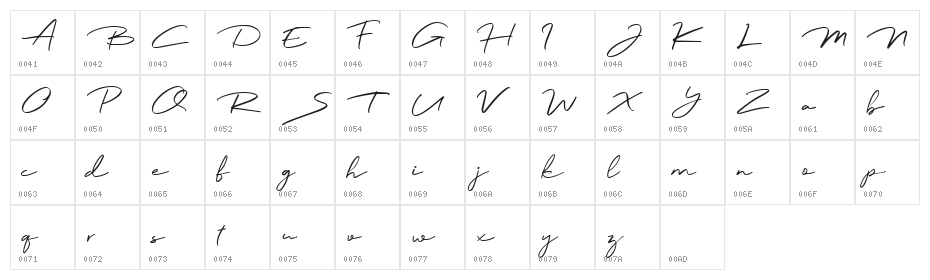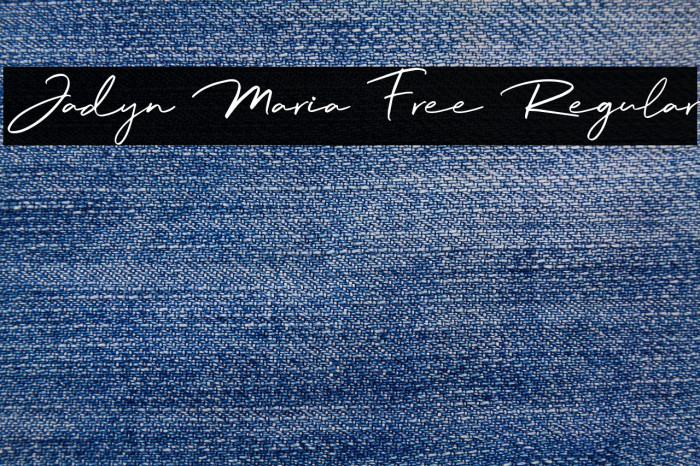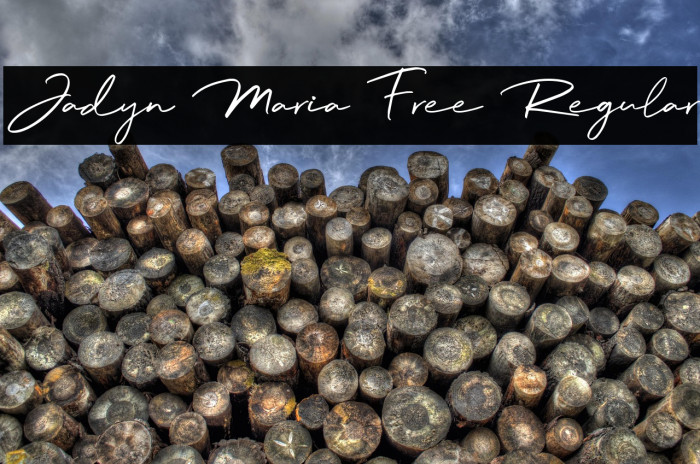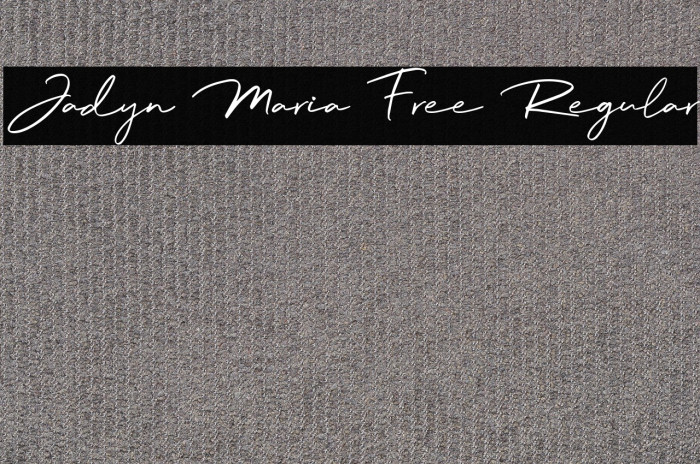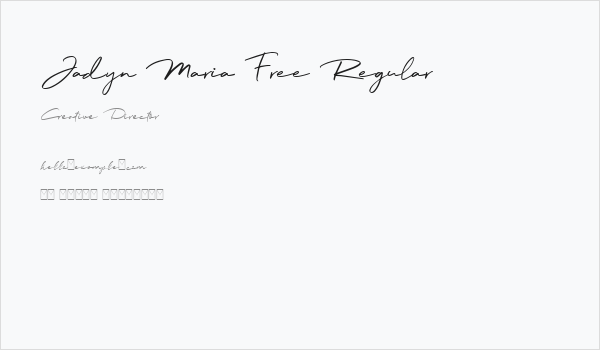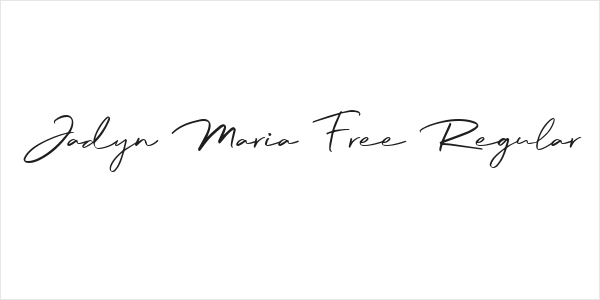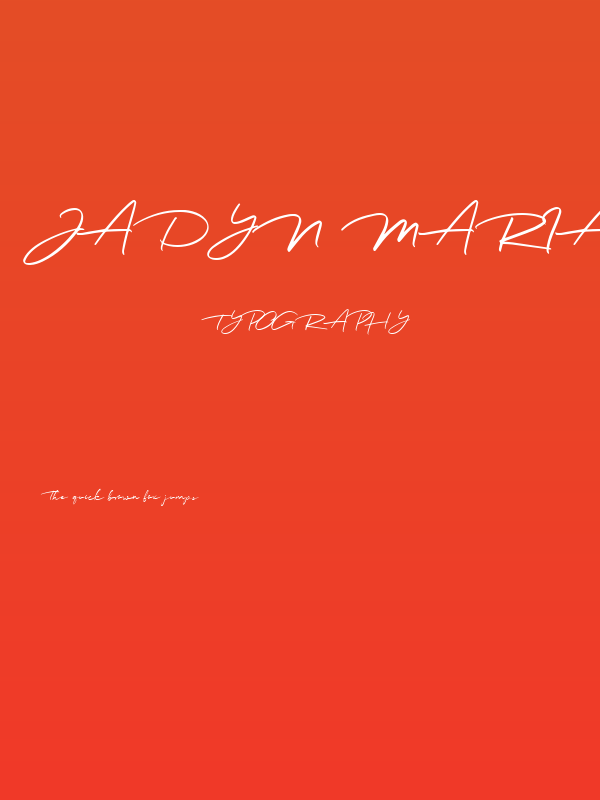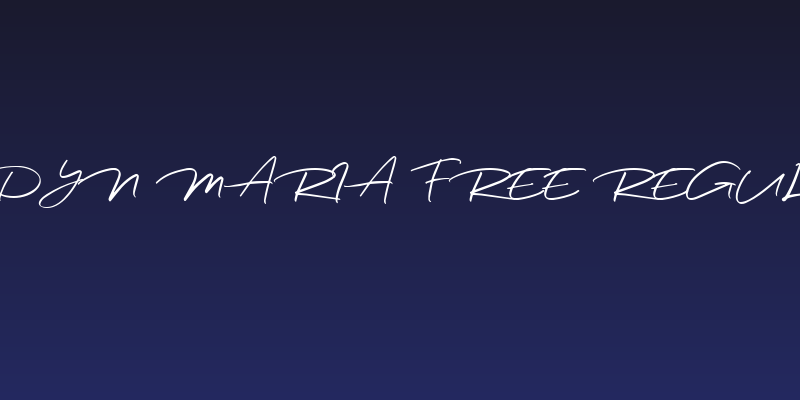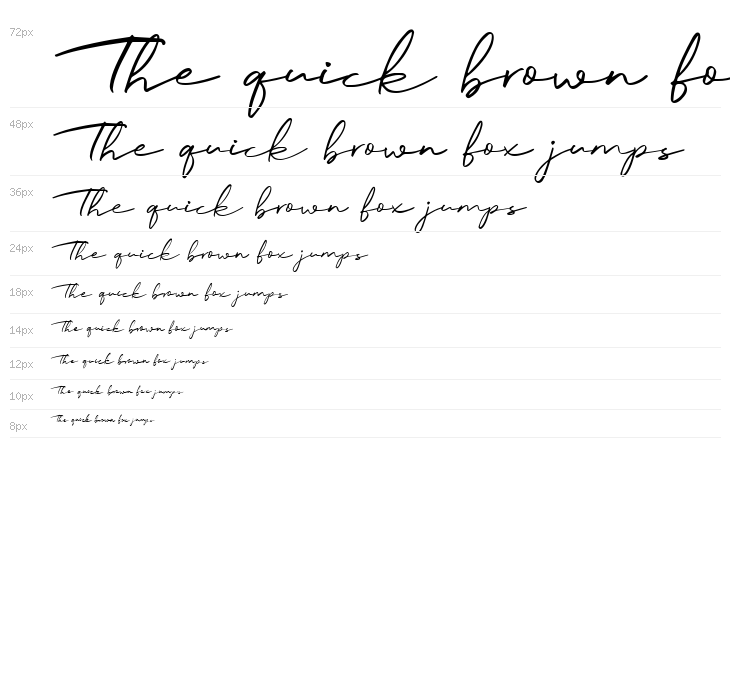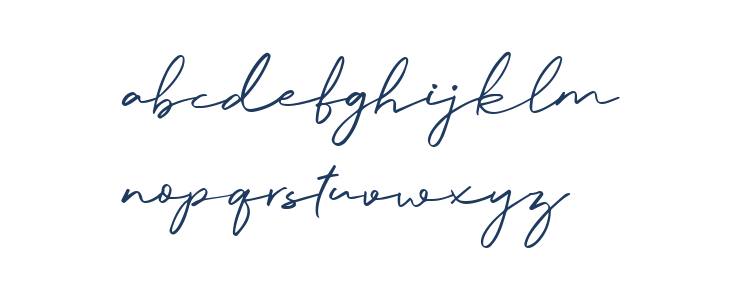
Jadyn Maria Free Regular Font
Jadyn Maria Free Regular Description
This font exudes a modern, handwritten style with a fluid and elegant script. The characters are connected, giving a sense of continuity and flow. The strokes are smooth and slightly varied in thickness, adding a dynamic and lively feel. The uppercase letters maintain a consistent height, while the lowercase letters have a slight slant, enhancing the handwritten appearance. The overall design is sophisticated yet approachable, making it suitable for creative and personal projects. The spacing between characters is tight, which contributes to its cohesive look.